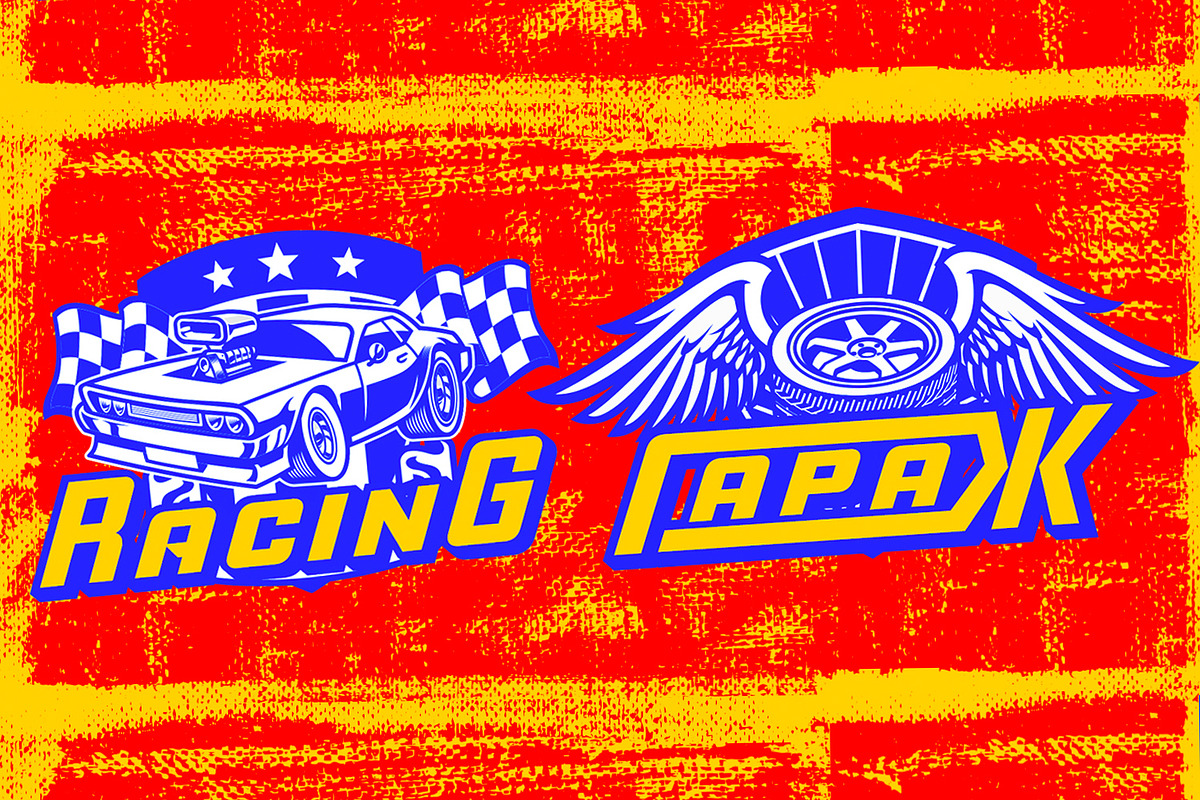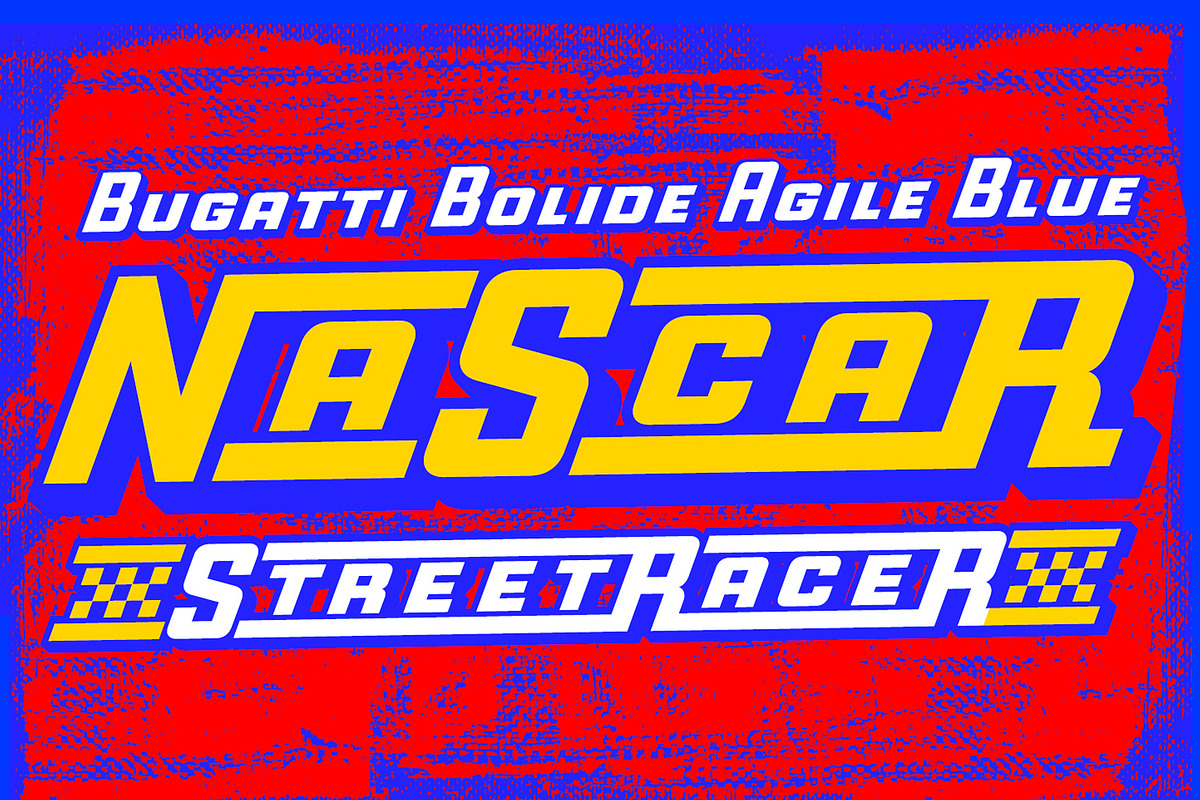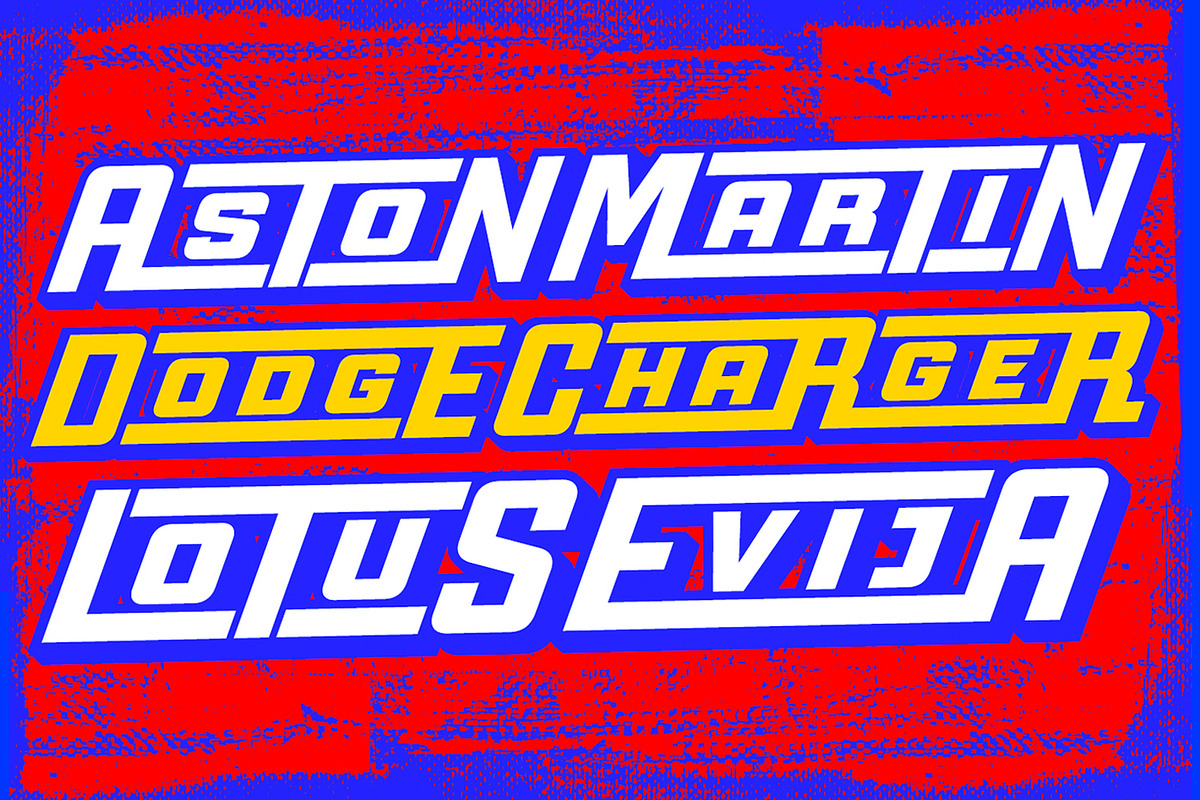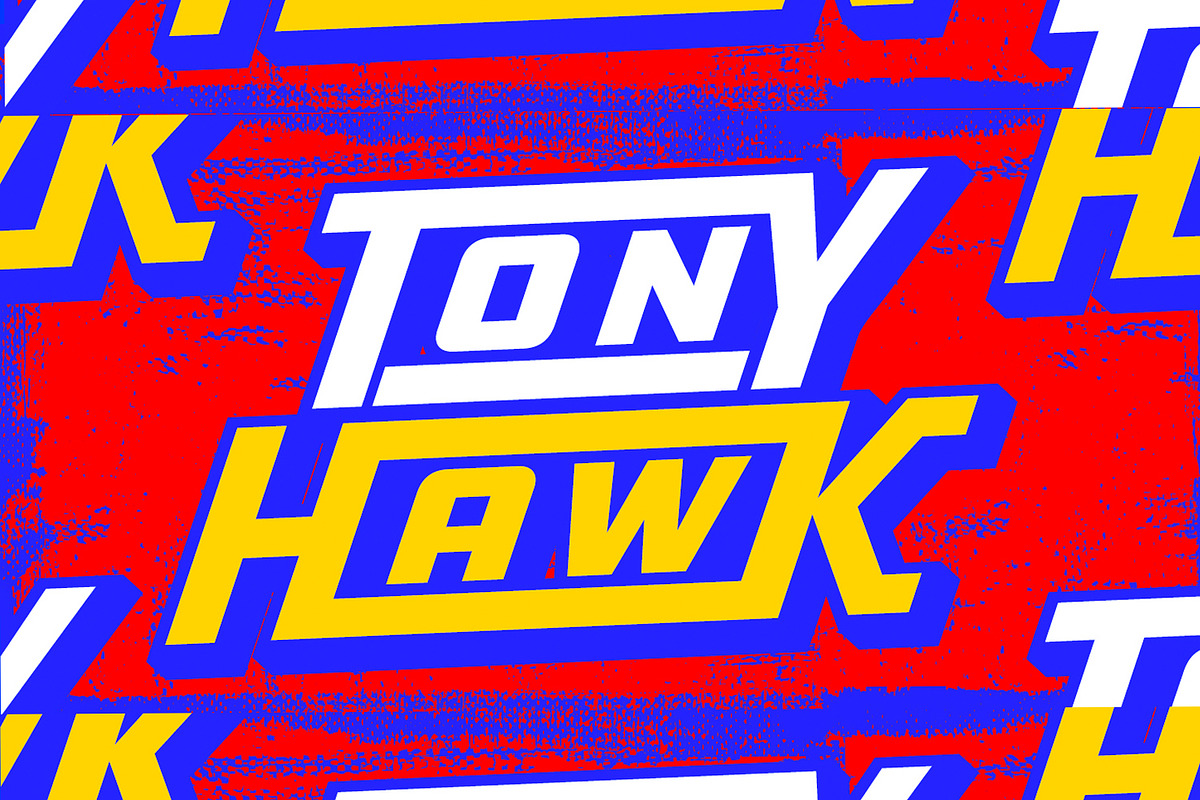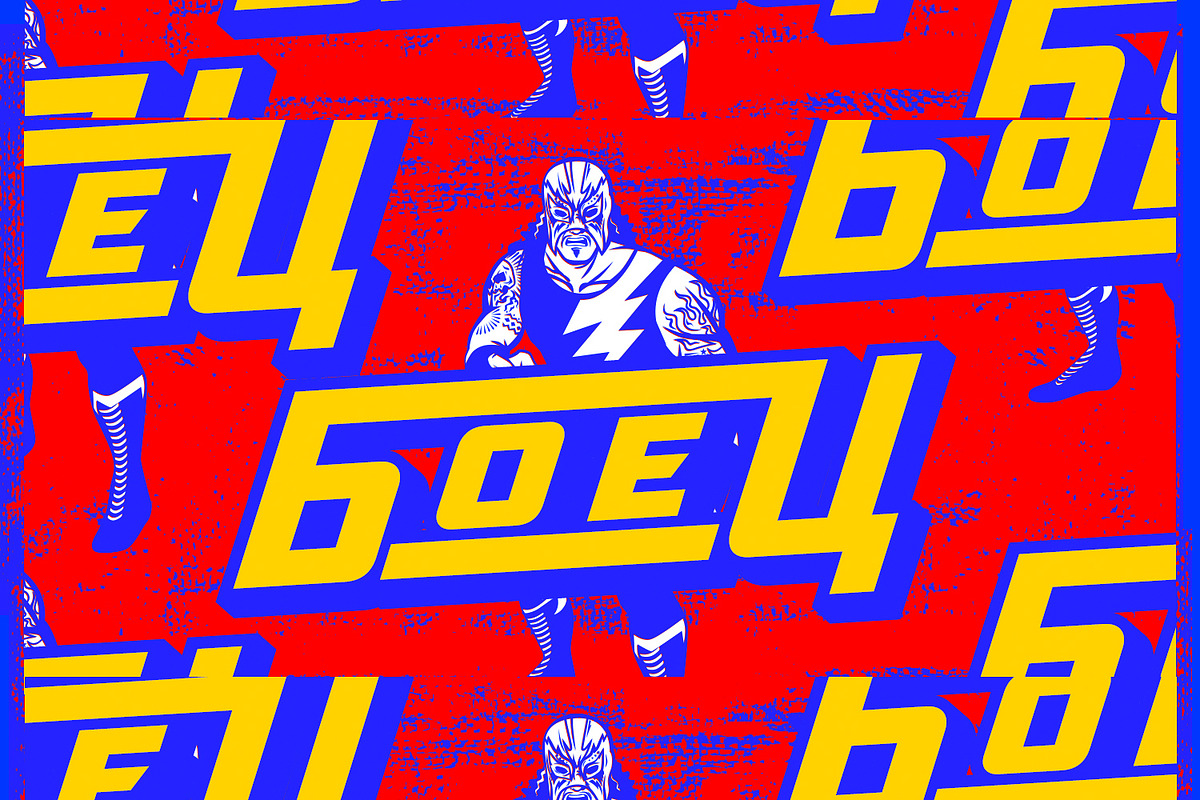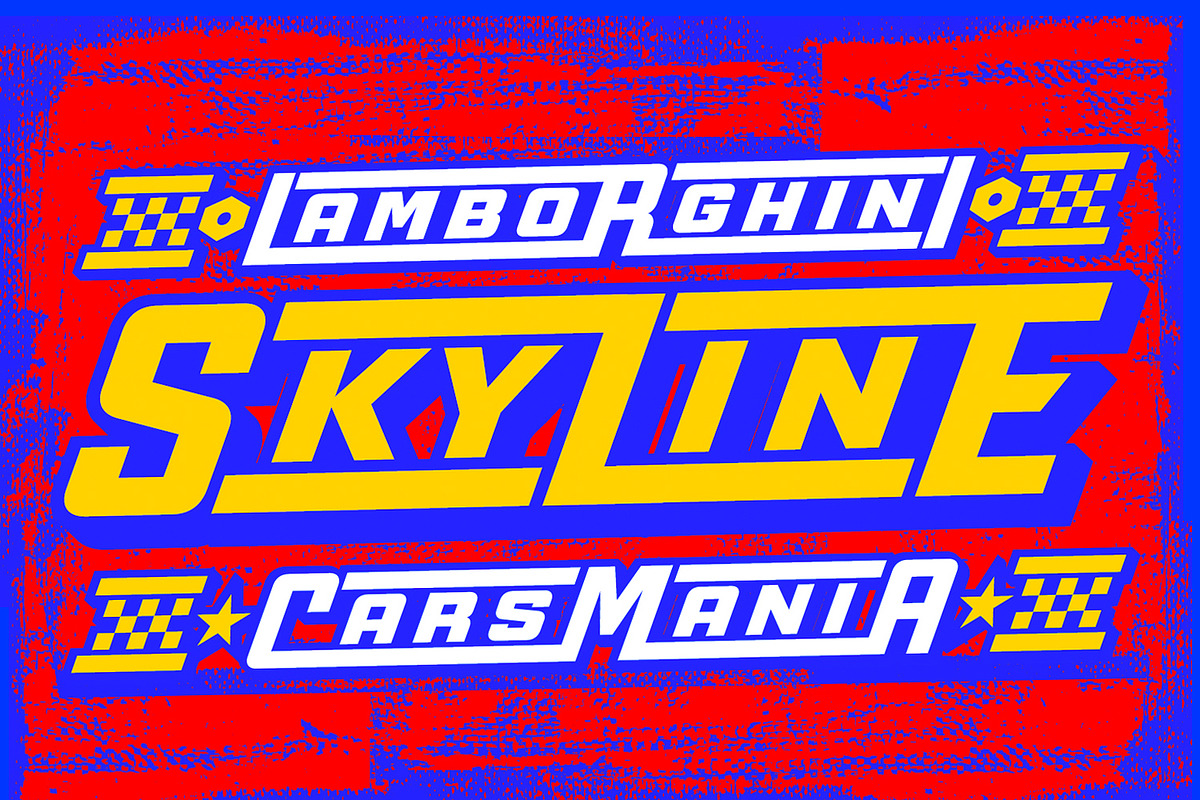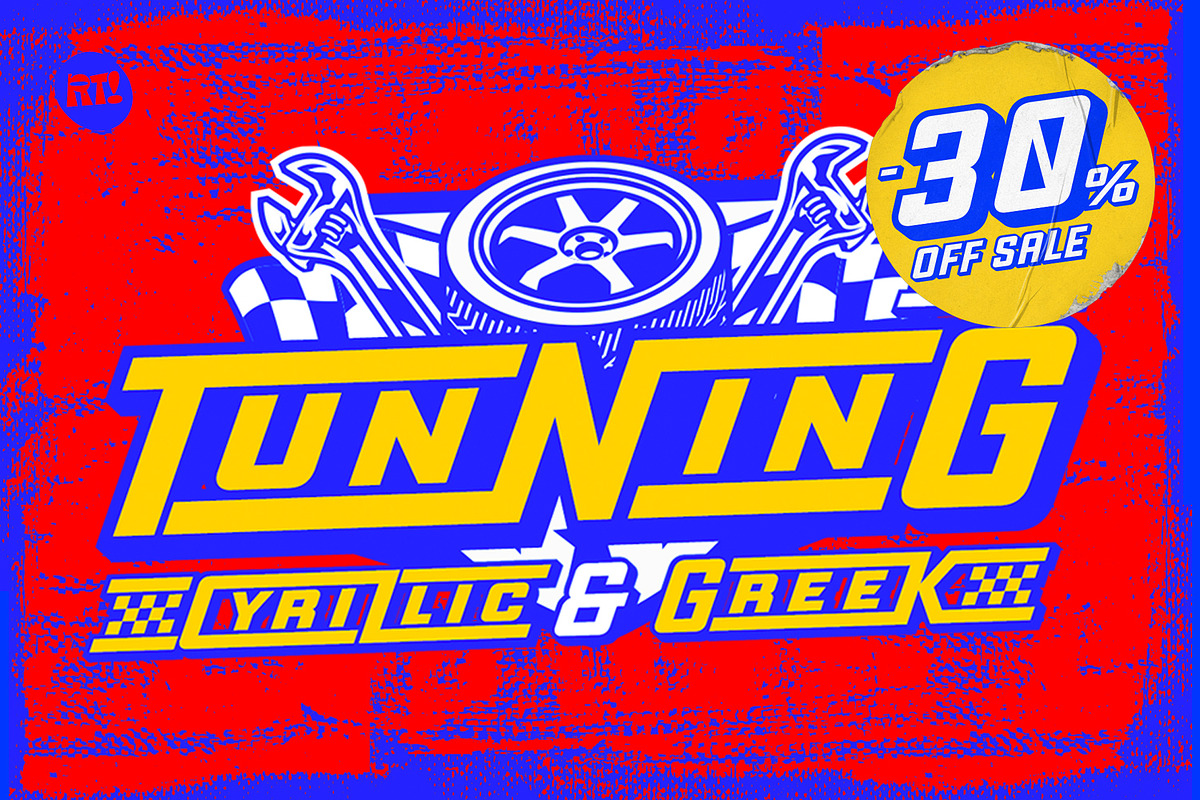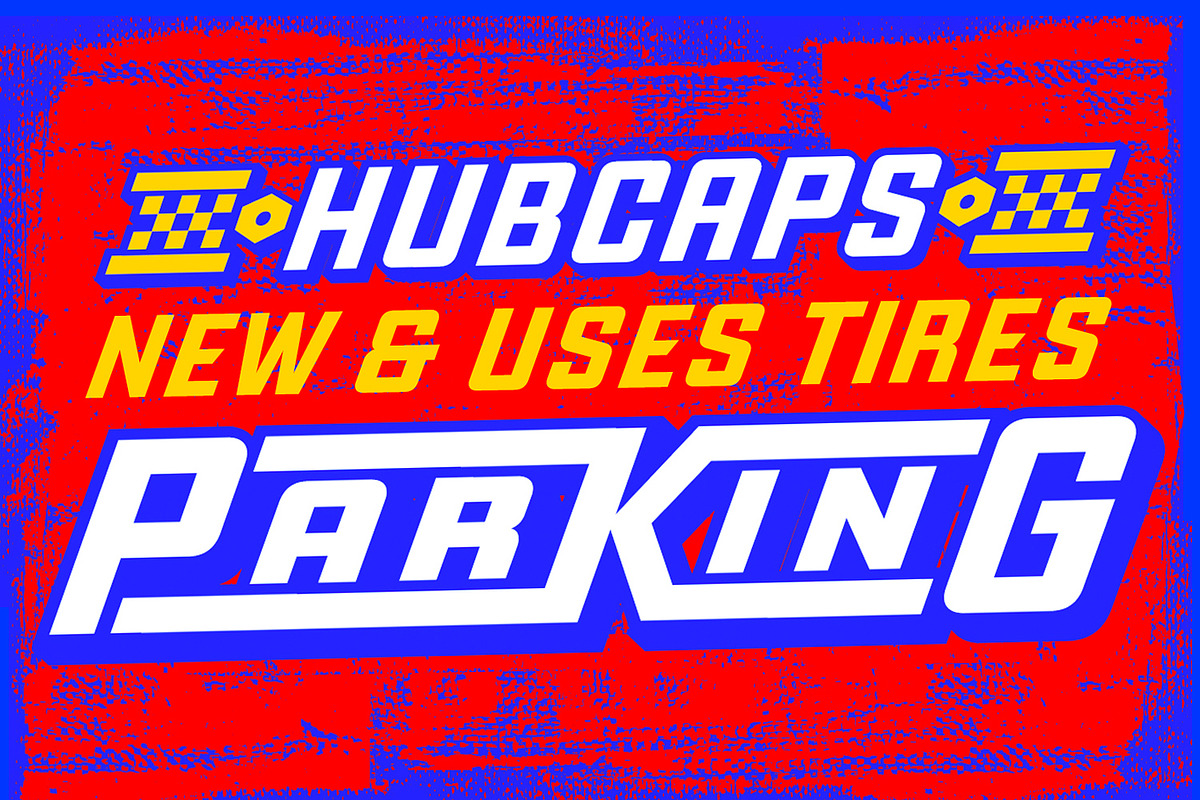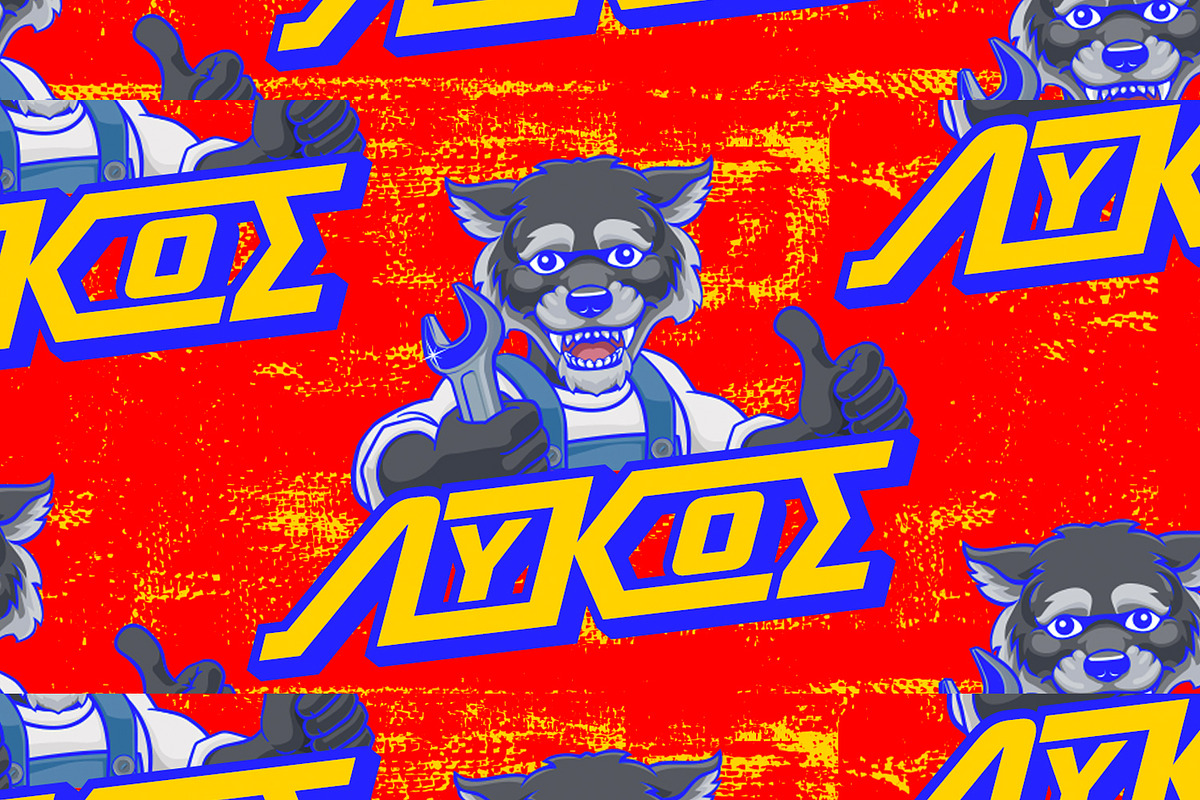
TuNning Pro / Greek + Cyrillic
TunninG Pro Year: 2023 Author: Rodrigo Araya Designers Bruno Jara, Rodrigo Araya Concept: Tunning Pro, is a perfect font for action titles, it contains 12 fonts that are separated into Regular version and Alternative version, each one contains the Cyrillic and Greek alphabet, in the alt version you will find many alternative letters for example Letter "A" contains 5 styles to add to the beginning or middle or end of a text.